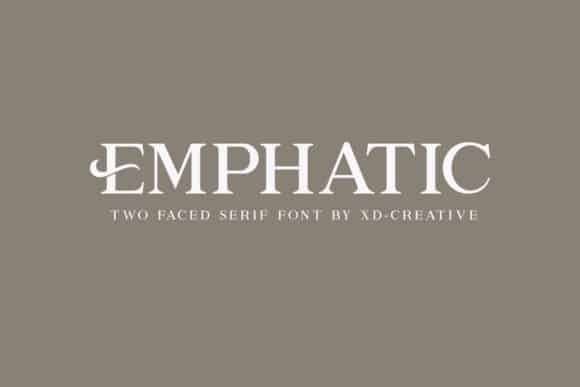
Emphatic Serif Font
Introducing, Emphatic Serif Font. Serif typeface with a modern and classic look and feel, this font is made with a variety of unique font alternatives.
This font is designed and shared by kudocreative. It’s a simple, elegant and authentic serif font. It can easily be matched to an incredibly large set of projects, so add it to your creative ideas and notice how it makes them stand out!
Emphatic Serif Font is easy to apply, especially in logos, posters, quotes, invitations, labels, greeting / wedding cards, magazines, books, business cards, fashion, packaging and formal forms or other types of advertising.